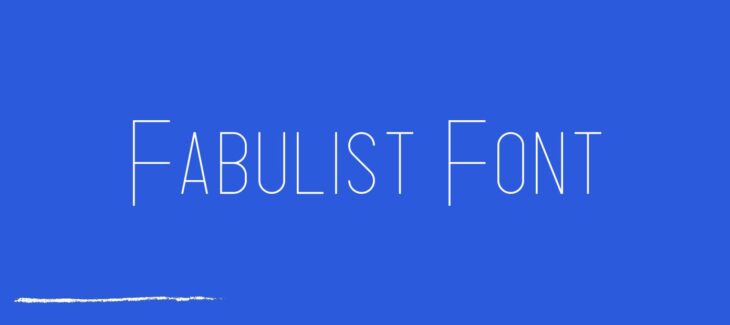
Fabulist Font is a very amazing typeface that was designed by a very popular design that named is
This font has always has been suitable for you large and small text designed and display. This typeface has also a vast number of international languages that have the opportunity for the users of this font. This font is also present in OTF and TTF file formats.
Who Used Fabulist Font?
Many organizations and developers looking for a font that is always suited to their design then I recommended you this font because this font has the ability to give a great impression in every field of design. This font is also very famous because of its pairing function.
This typeface has a very charming and beautiful look that many designers also utilize this font in their regular basis design. many famous fonts are trademarks of many different companies but this font is not used as a trademark.
Fabulist Font Family Appearance
| Style | Display |
Is Fabulist a good Font?
Yes! This font is a very good font because this font is easy to read by the designer and users also. This font is highly useable among designers.